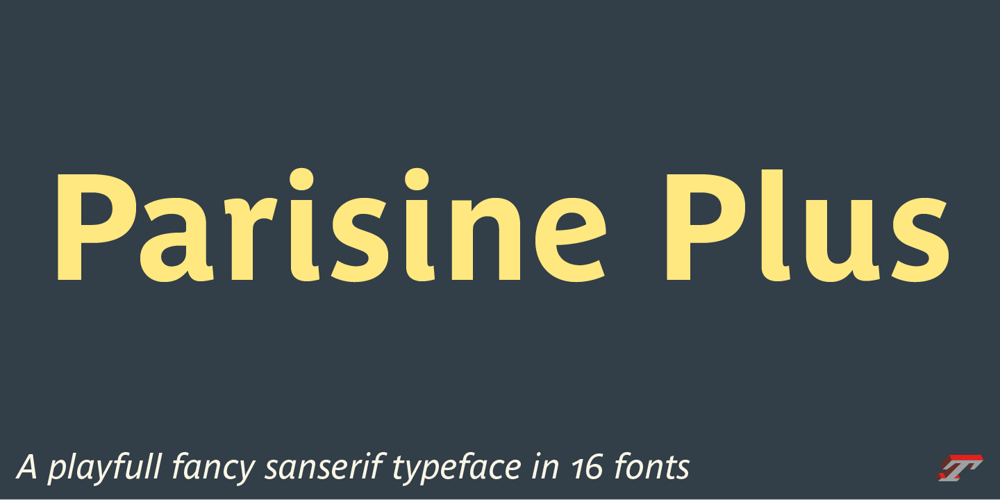
Parisine Plus Std
Parisine Plus Std font
Parisine Plus Std Font Family was designed by Jean François Porchez and published by Typofonderie. Parisine Plus Std contains 16 styles and family package options. A playfull fancy sanserif typeface in 16 fontsParisine Plus was designed in 1999 as an informal version of Parisine. A reaction to the subjective functionalism of Parisine. In fact, when Parisine try to express neutrality (a typeface is never neutral), Parisine Plus has fun with contrasts and not-so-obvious additions for a sans family. Parisine Plus is a precursor in the way it offers many ligatures and strange forms we generally find more in serif typefaces families that express historical connotations.The various Parisine Plus typeface subfamiliesParisine Plus is organised in various weight subsets, from the original family Parisine Plus (4 compatible fonts), Parisine Plus Gris featuring lighter versions of the usual Regular and Bold (4 compatible fonts), Parisine Plus Claire featuring extra light weights (4 compatible fonts), to Parisine Plus Sombre with his darker and extremly black weights as we can seen in Frutiger Black or Antique Olive Nord (4 compatible fonts).About Parisine helps Parisians catch the right busParisine Plus and its fancy type effectsObservateur du design star of 2007